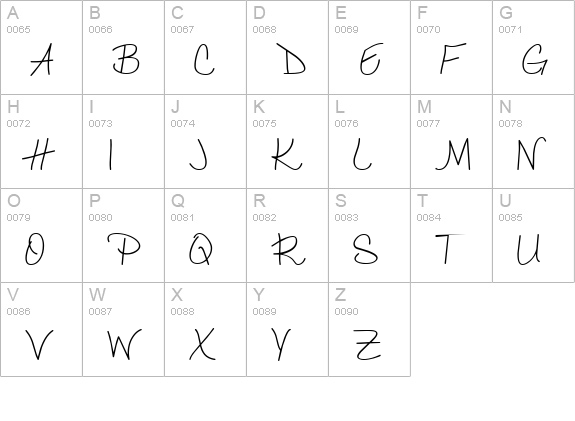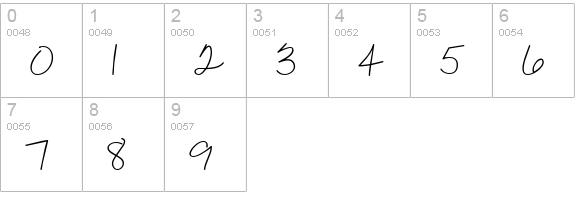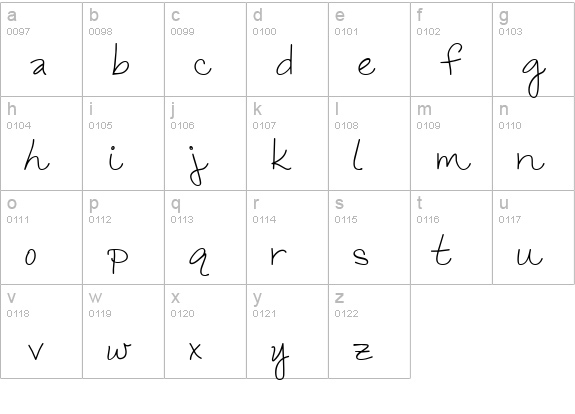
CK Carefree Font Details
Introducing CK Carefree font, a delightful and whimsical typeface that exudes a sense of lightheartedness and carefreeness. With its playful curves and charming letterforms, this font is perfect for adding a touch of joy and creativity to your designs. Whether you're working on a fun project, creating invitations, or designing a cheerful logo, CK Carefree font will surely bring a smile to your audience's faces. Best of all, CK Carefree font is freely available to download at FontsMarket.com, making it easily accessible for all your design needs. Embrace the free-spirited nature of this font and let your creativity run wild with CK Carefree!